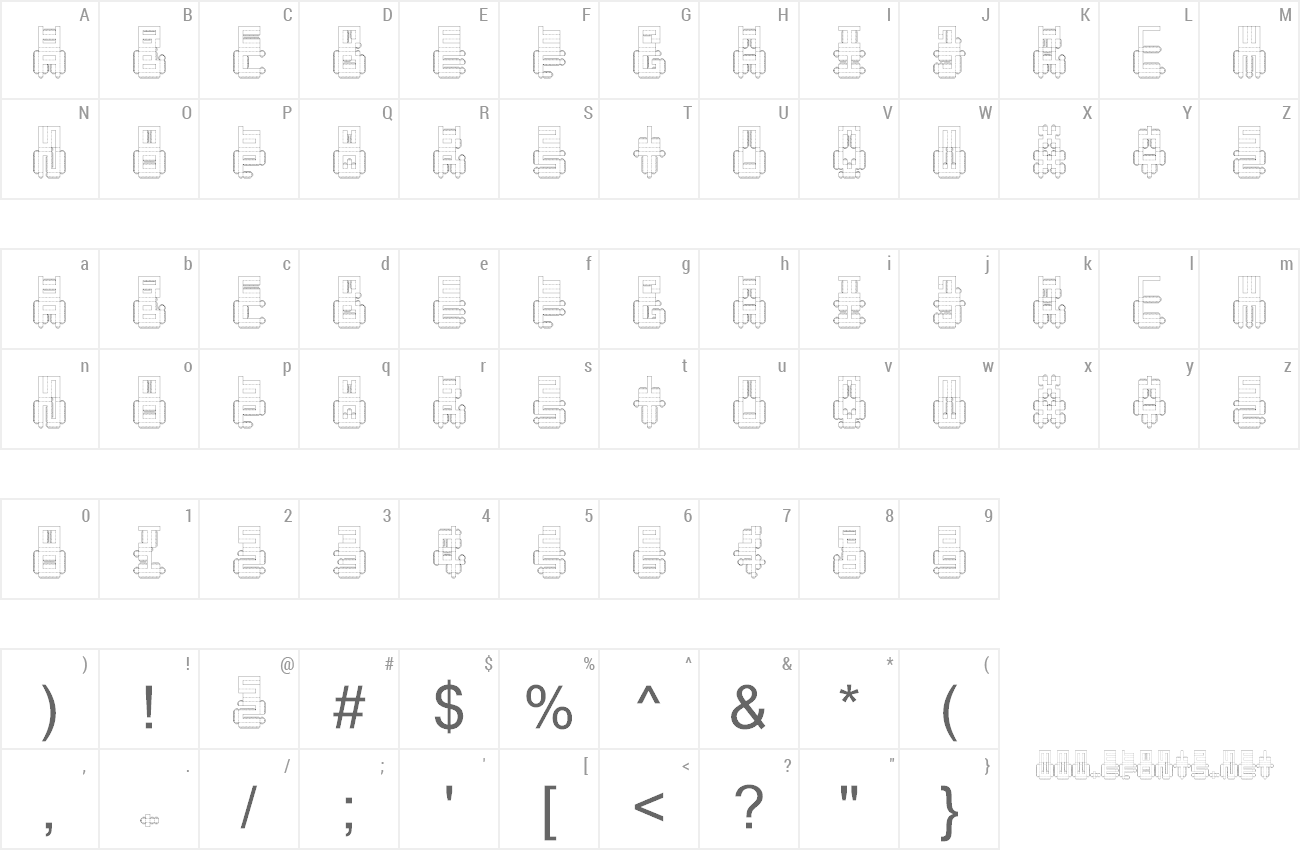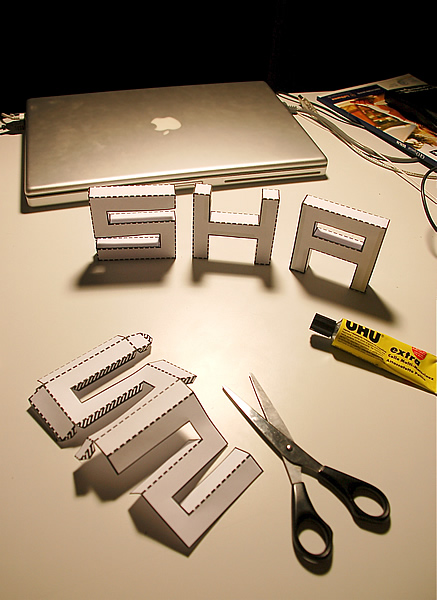
Preview and download Punched Out Font. Created by Tobias Sommer in Techno Various styles with Free for personal use license.
This font is a set of cut-out layouts with which you can build 3D pixel style letters. They should all work. Just cut along the solid lines, fold along the dotted lines, put some glue on the shaded flaps, stick them together and there you go... If you want to use this for commercial projects, please contact me: tobias (dot) sommer (at) gmx (dot) ch I also appreciate it if you send me links/images of your non-commercial work featuring this font. Have fun! :) (Update 29-04-2012: Redesigned X. Looks much better now.) |